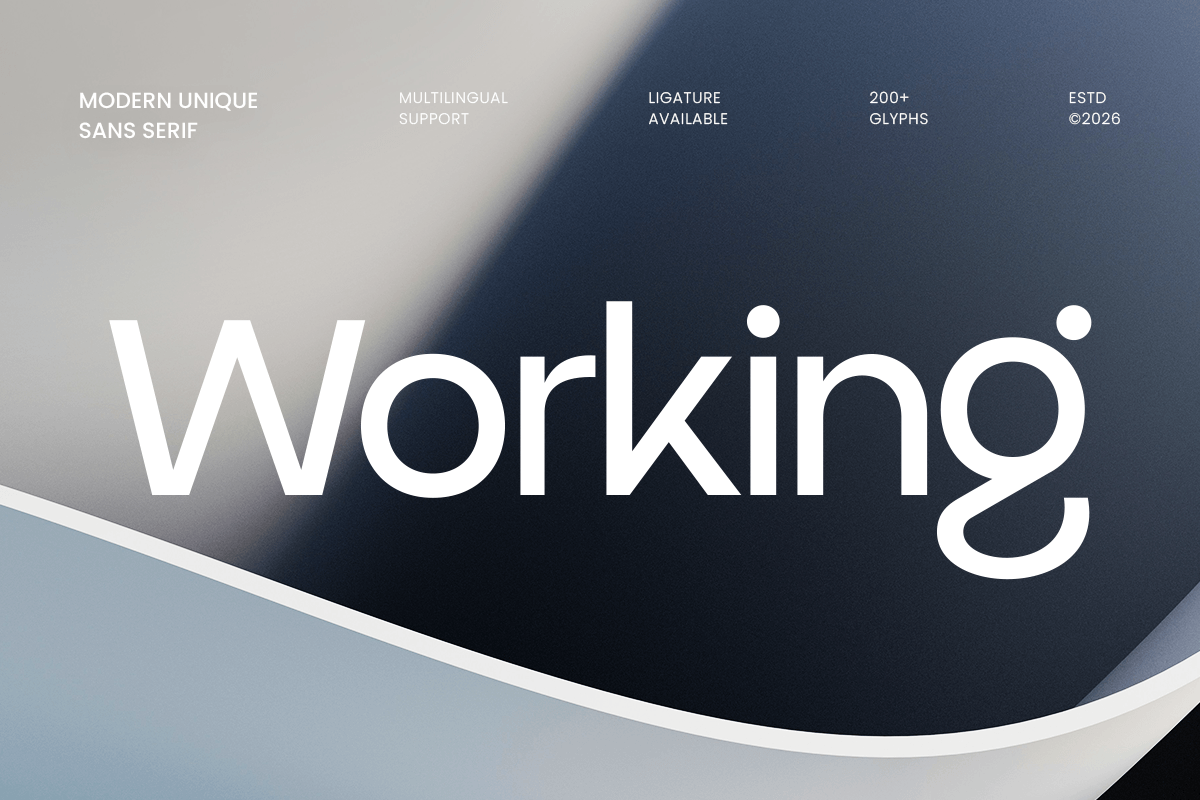
Working
-Modern Minimalist Sans Serif Font
Working – Modern Minimalist Sans Serif Font
Working is a modern unique sans serif font crafted to deliver clarity, confidence, and a distinctive contemporary edge. With clean shapes, balanced proportions, and a crisp rhythm, this typeface creates a professional tone that feels modern, reliable, and instantly brand-ready.
Designed for brand-focused typography, Working performs seamlessly across logos, wordmarks, identity systems, website headers, UI design, presentations, posters, signage, packaging, and social media graphics. Its modern sans structure keeps everything readable and consistent, making it ideal for both bold headlines and everyday brand communication across digital and print layouts.
Whether you’re building a startup identity, refining a corporate system, or creating a minimal product brand, Working provides a clean sans serif foundation that makes your typography feel smart, modern, and highly versatile.
Inspiration Behind Working
Working is inspired by contemporary branding systems and modern UI-driven typography—where simplicity, precision, and consistency create trust. The design focuses on clean geometry and functional readability to support professional identity design, digital-first communication, and modern corporate aesthetics.
Working Font Features:
• Modern sans serif letterforms with unique, contemporary character
• Clean structure optimized for branding and logo design
• High readability for headlines, UI, and professional layouts
• Logos, wordmarks, and modern brand identity systems
• Corporate branding, startup visuals, and business communication
• UI/UX, website headers, dashboards, and digital product typography
• Packaging, signage, presentations, and clean promotional layouts
• Social media graphics, ads, and contemporary marketing assets
Build a clean modern identity with Working—a unique sans serif font made for sharp branding and sleek digital clarity. ✨